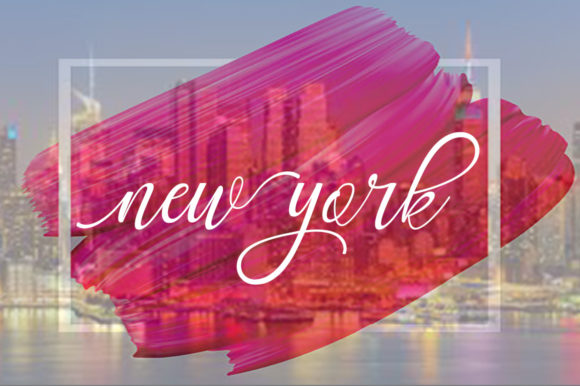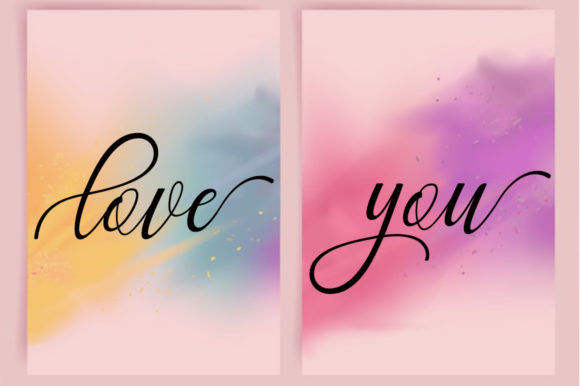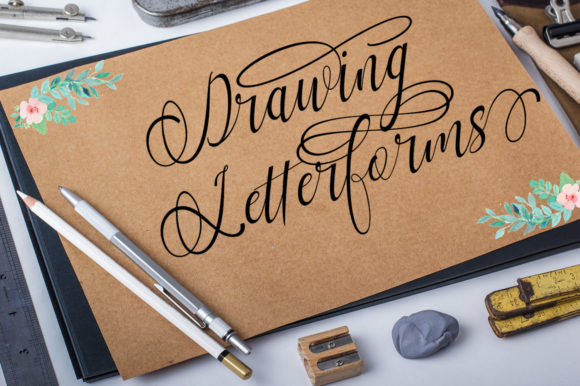
Introduction to Mellanie Font
As designers, we’ve all been there – staring at a blank canvas, struggling to find the perfect font to bring our creative project to life. But what if that perfect font was right in front of us, waiting to be discovered? For those who have been searching for a unique and elegant font to elevate their designs, look no further than the beautiful Mellanie Font.
Designed by handwriting, Mellanie features a stunning style that resembles modern forms of calligraphy. With its high-quality design and transparent background, this versatile font is perfect for a wide range of creative projects, from elegant invitations to stylish blog headers.
Whether you’re a seasoned designer or just starting out, the Mellanie Font is a valuable resource that’s easy to download and incorporate into your next project. In this article, we’ll take a closer look at the features and benefits of this incredible font, and explore why it’s become a favorite among designers.
Mellanie Font
- Unique, elegant script font with a transparent background, perfect for adding a touch of sophistication to any design.
- Great for use in invitations, wedding designs, quotes, and other creative projects where a beautiful, handwritten font is desired.
Honest Review: Mellanie Font
What works well is the high-quality design and the transparent background, making it easy to integrate into any design resource. The font is also highly customizable, allowing me to experiment with different styles and effects.
- ✨ High-quality design with a professional touch
- ✨ Transparent background for easy integration
- ✨ Highly customizable with a wide range of styles
However, I did encounter a few limitations. The font is not suitable for all types of projects, and it may not be as versatile as some other design resources. Additionally, the font can be a bit difficult to read at smaller font sizes.
Overall, I’m really impressed with the Mellanie Font and would definitely recommend it for designers working on creative projects that require a high-quality, customizable font.
- ⚠️ May not be suitable for all types of projects
- ⚠️ Can be difficult to read at smaller font sizes
Mellanie Font
The Mellanie Font is a high-quality design resource ideal for creative projects. You can download it for free to enhance your designs with a unique and elegant touch.
For the best results, use the Mellanie Font with a transparent background to give your design a clean and elegant look. You can also experiment with different font sizes and styles to create a unique visual effect.
The Mellanie Font is ideal for:
- Wedding invitations and stationery.
- Business cards and marketing materials.
- Blog posts and social media graphics.
Alternatives to Mellanie Font
Can I use Mellanie Font on a transparent background?
Yes, Mellanie Font is designed to be used on a transparent background, making it perfect for use in logos, icons, and other design elements where a transparent font is required. The font’s transparent background allows it to blend seamlessly with any background color or image, giving you more flexibility in your design.